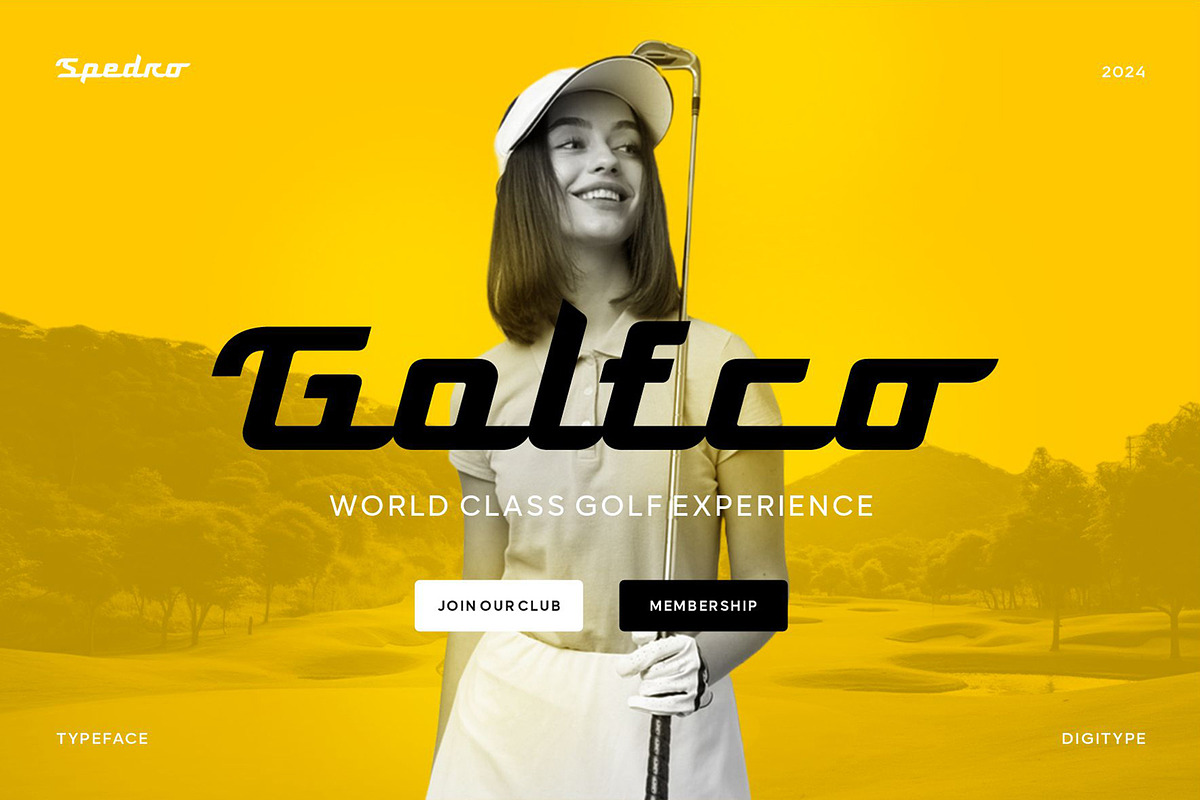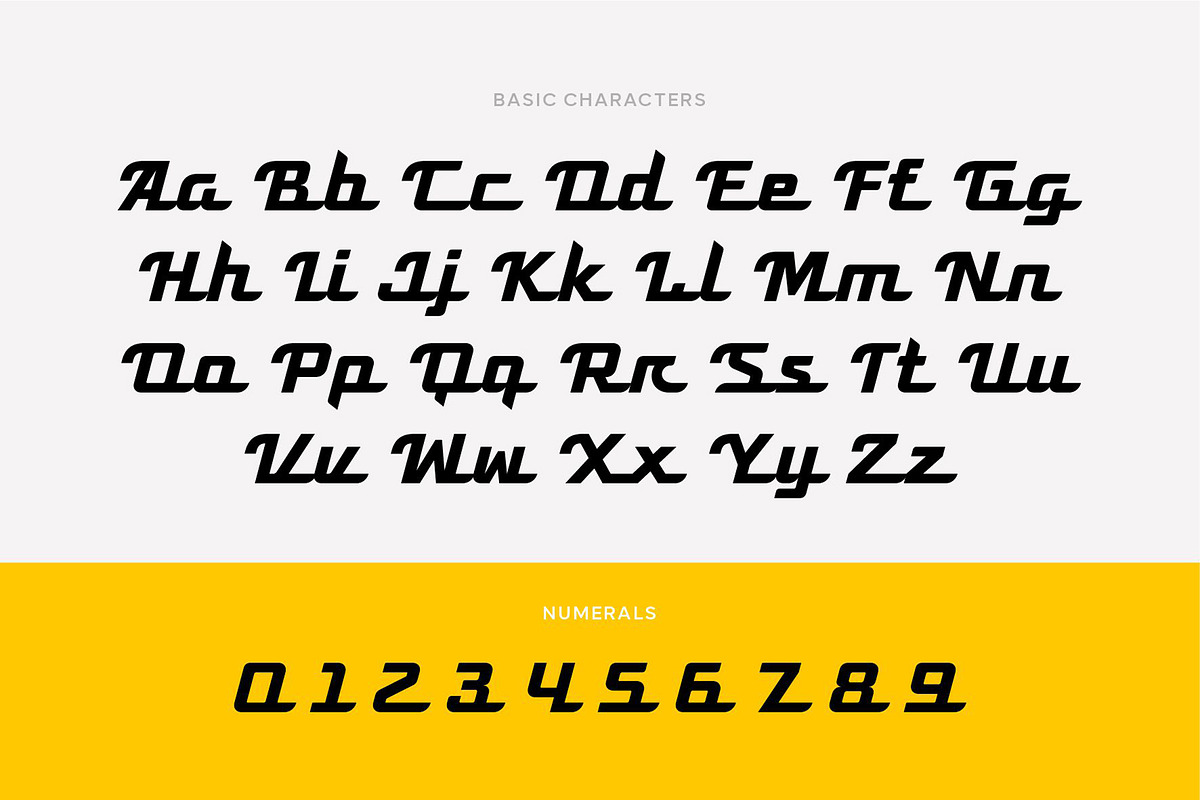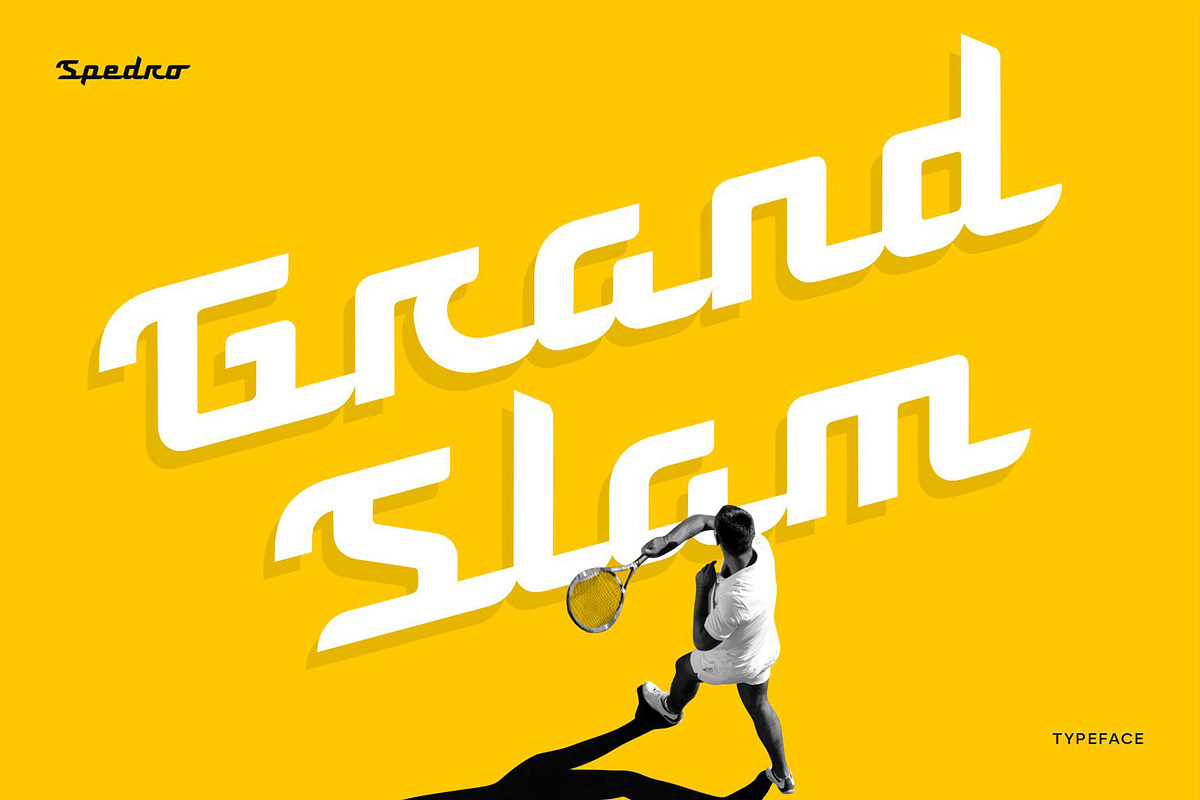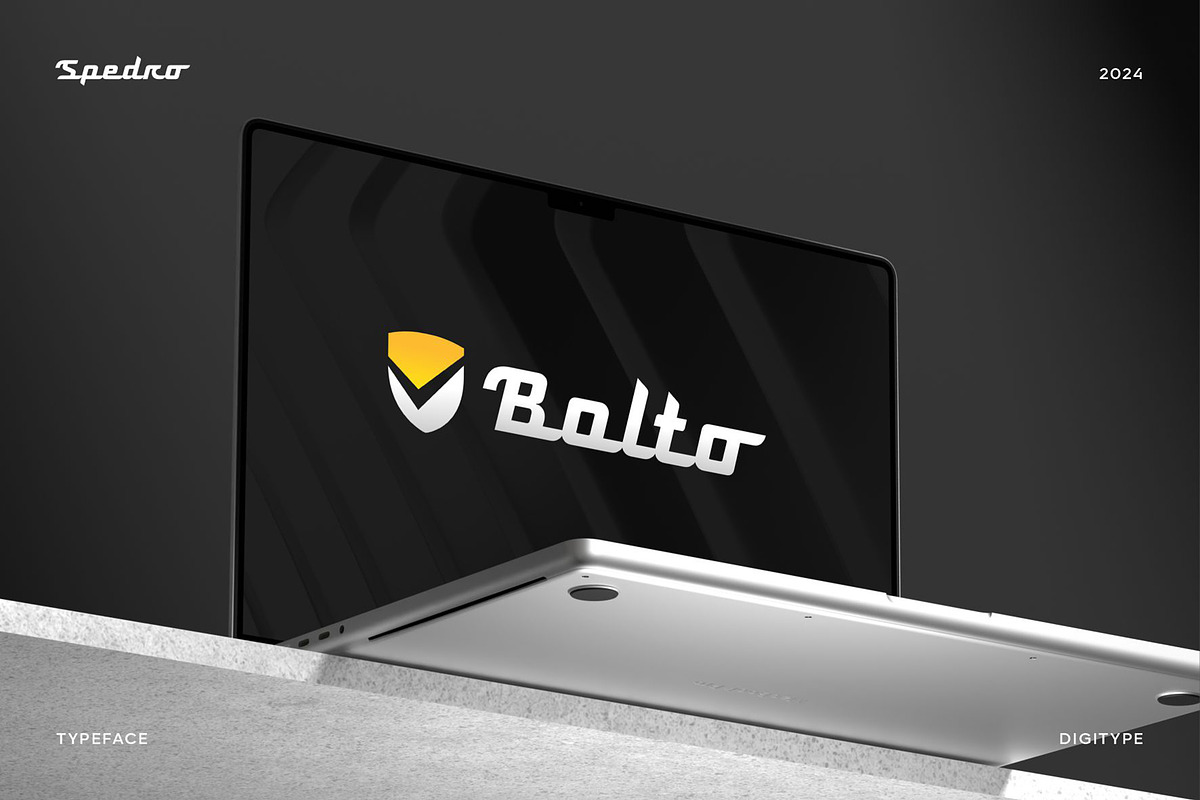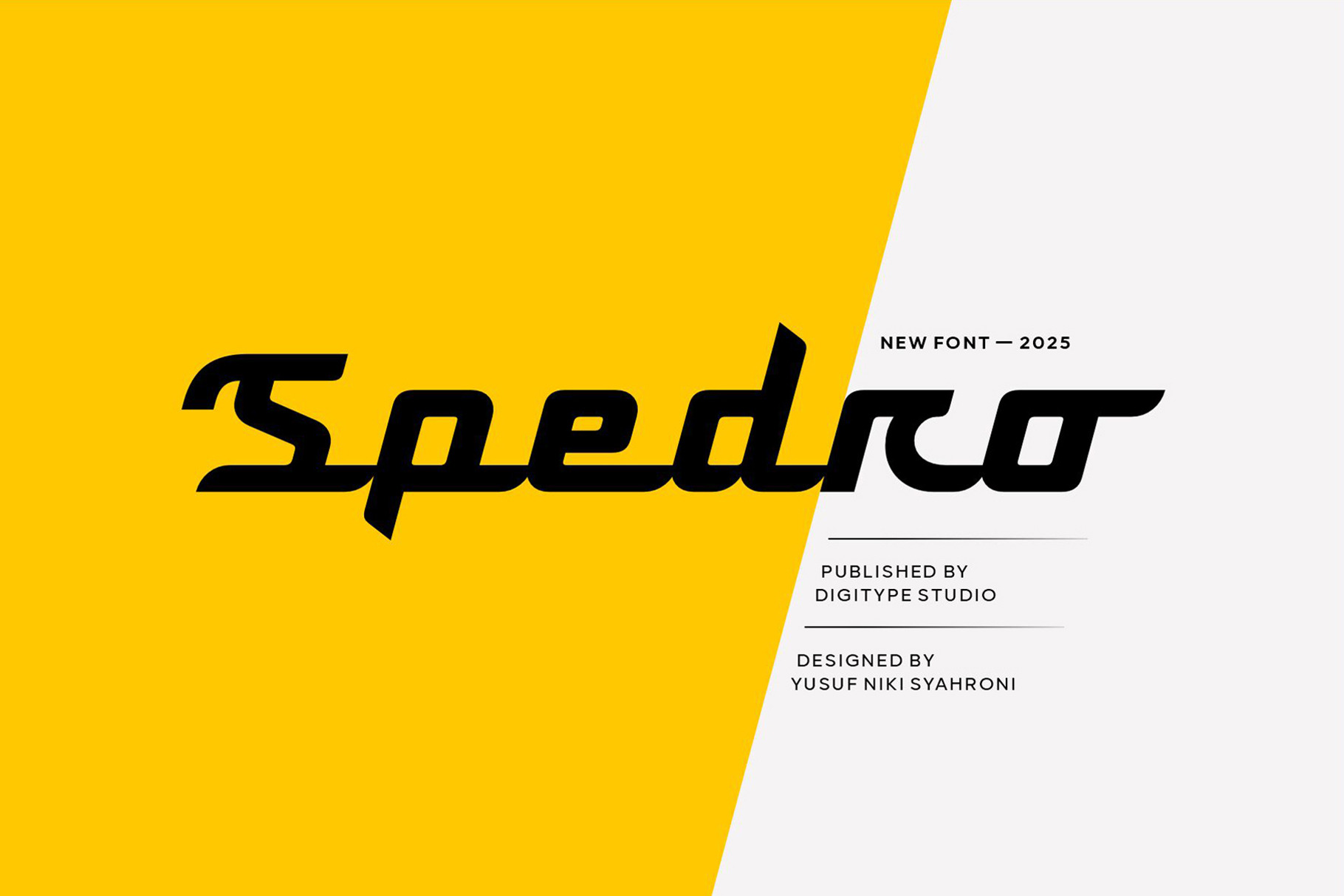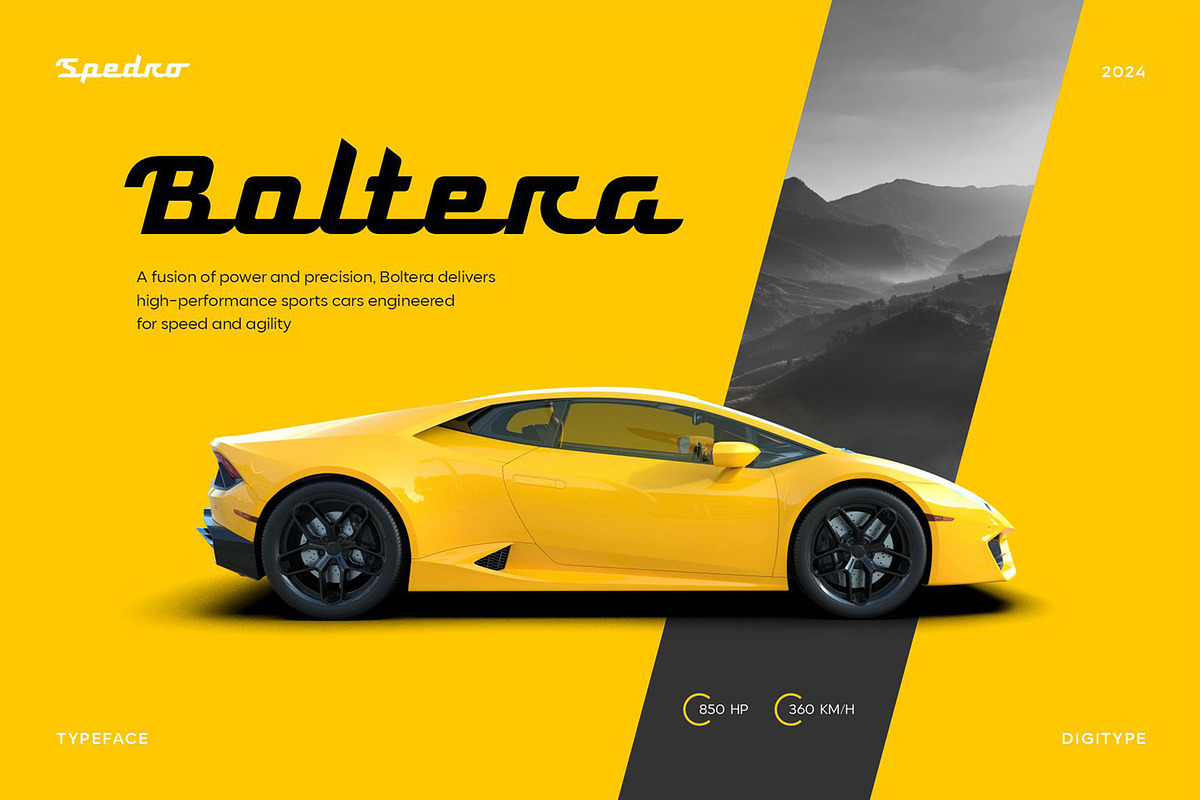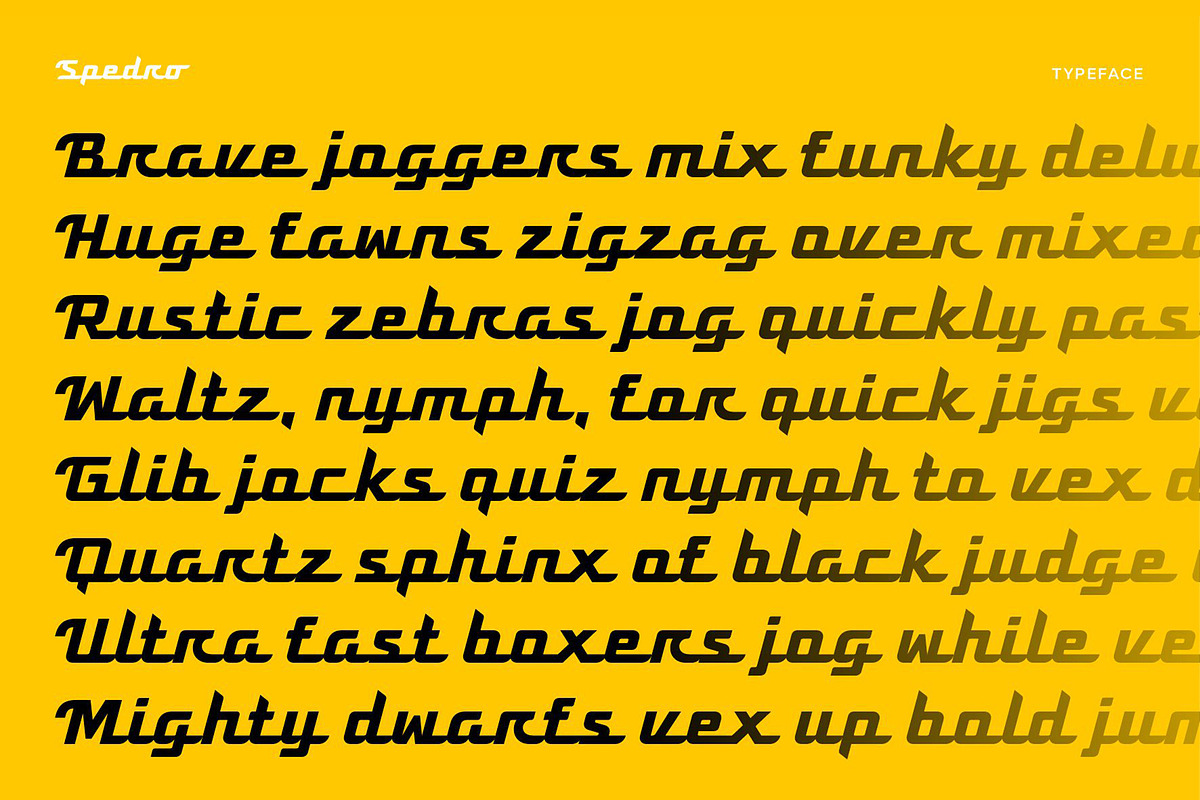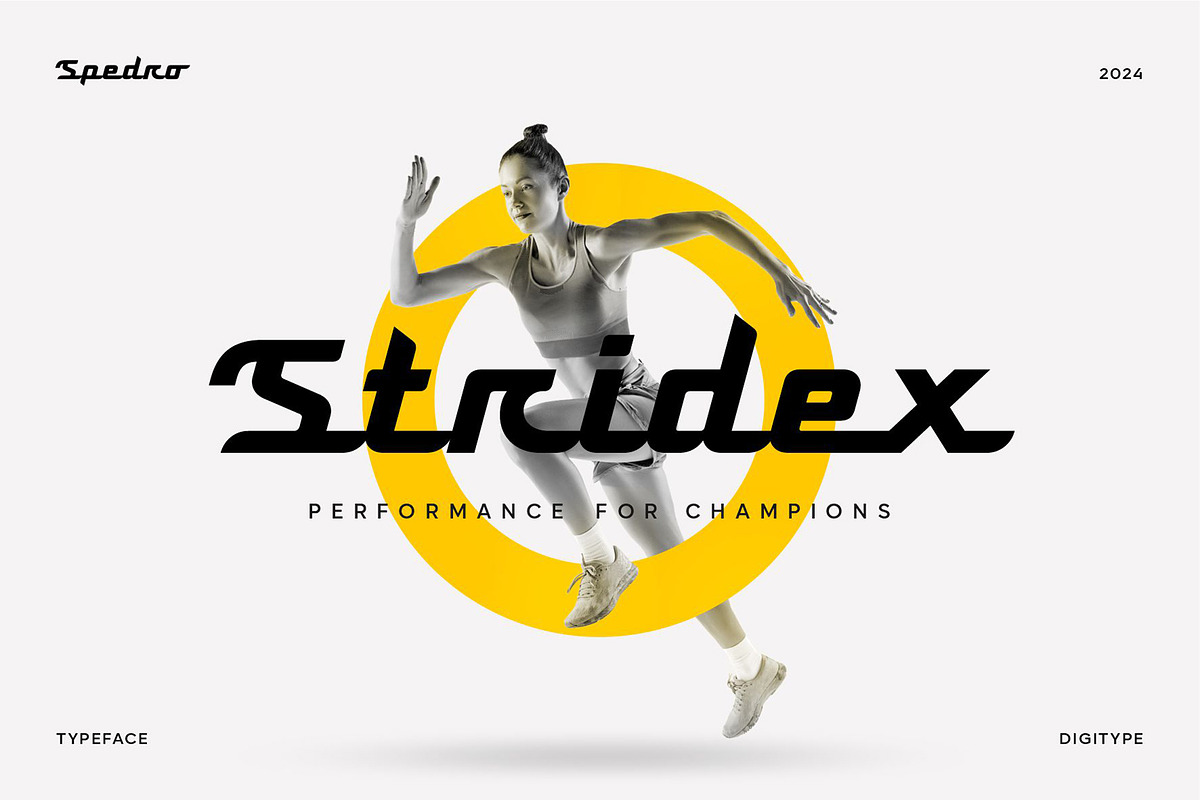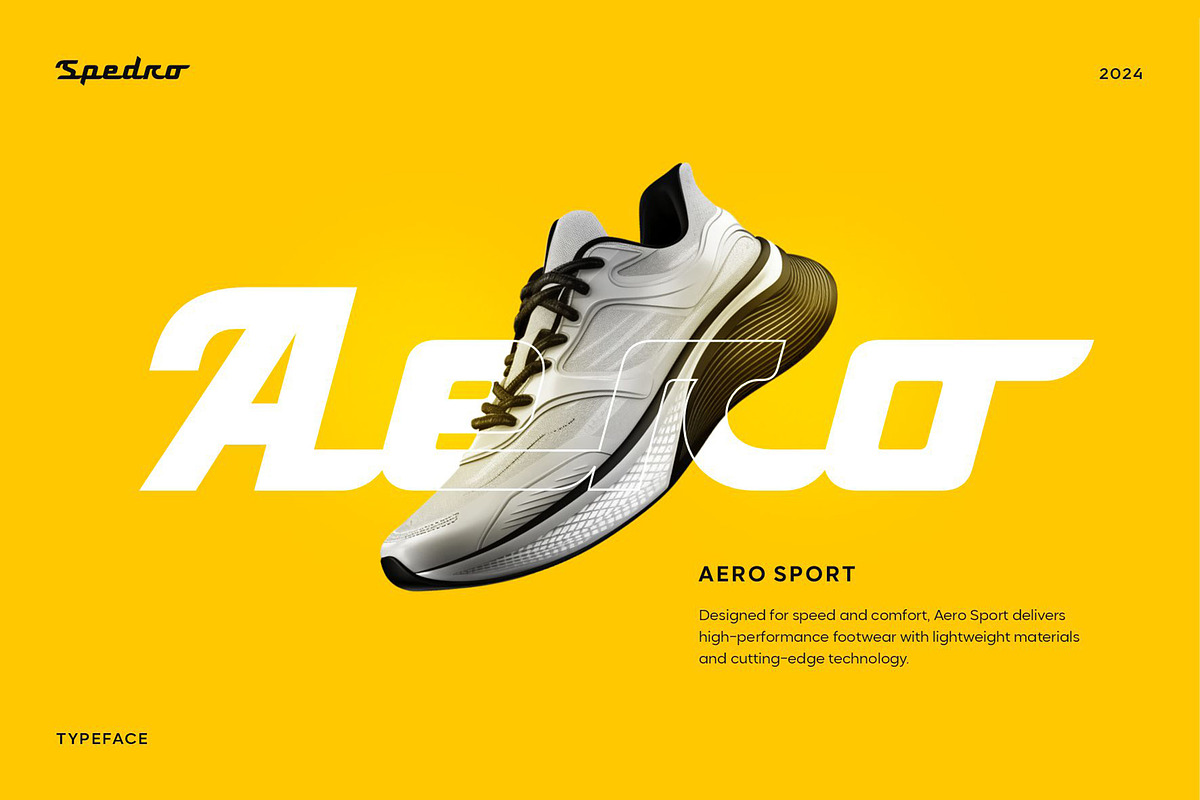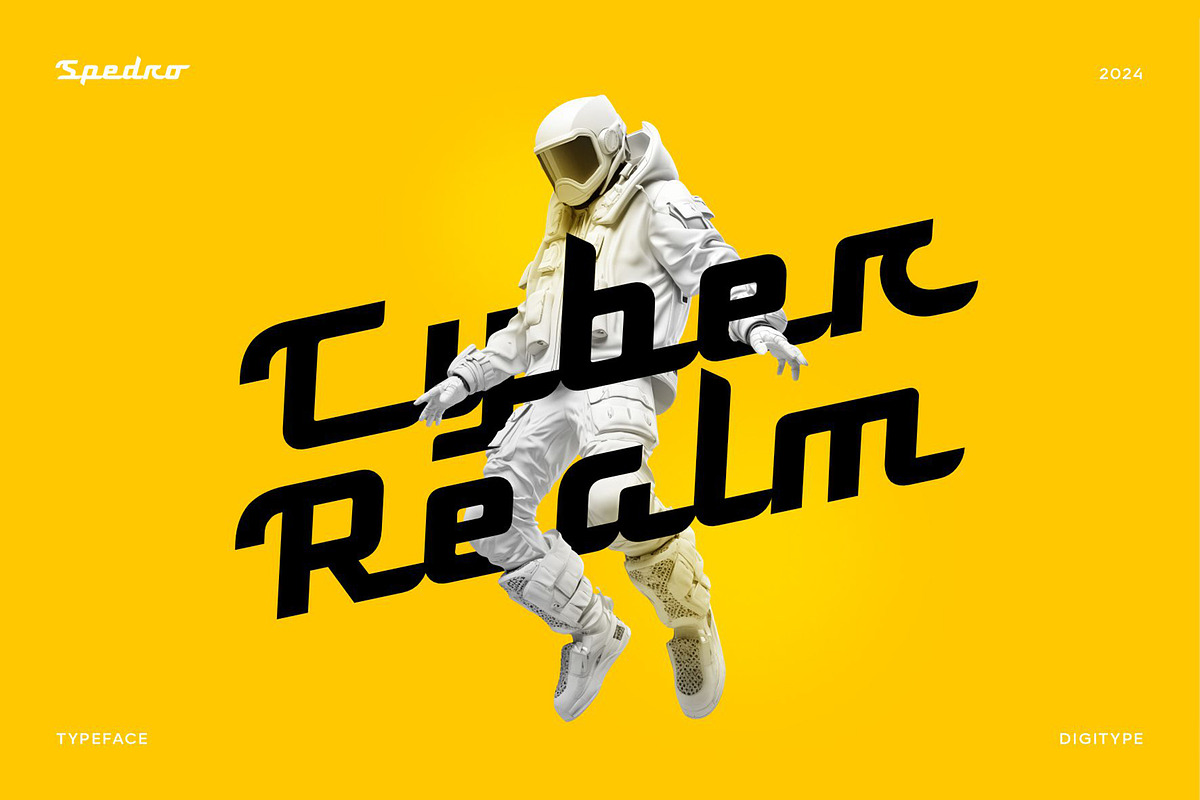
Spedro | Sporty Script Font
Spedro is a sporty script font, sharp and bold, designed with a dynamic and energetic aesthetic to bring speed and vitality to your projects. Its futuristic and powerful design makes it ideal for branding, sports, the automotive industry, technology, esports, and any project that requires a strong, stylish presence.
The features include: